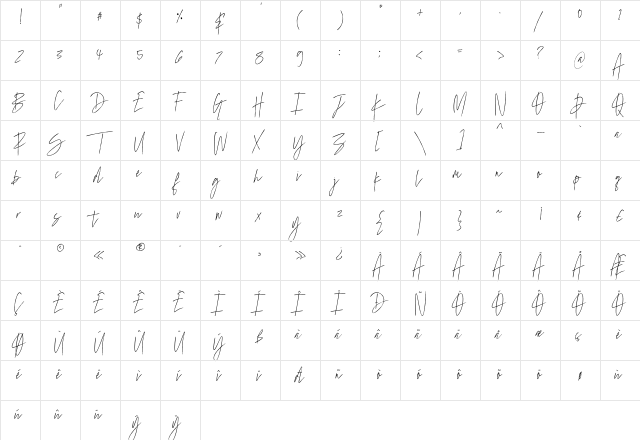
Marvelous Photograph Script Regular
Design Context for Marvelous Photograph Script Typeface
Marvelous Photograph Script brings a calligraphic fluidity to the page — its connecting strokes and expressive curves give it an unmistakably human quality.
Font Pairing: Combine Marvelous Photograph Script with a simple geometric sans for maximum contrast — the tension between flowing curves and clean structure is a classic typographic pairing.
Pro Tip: Use Marvelous Photograph Script for short runs of text — names, titles, or taglines. Extended body copy in script faces tires the eye quickly.